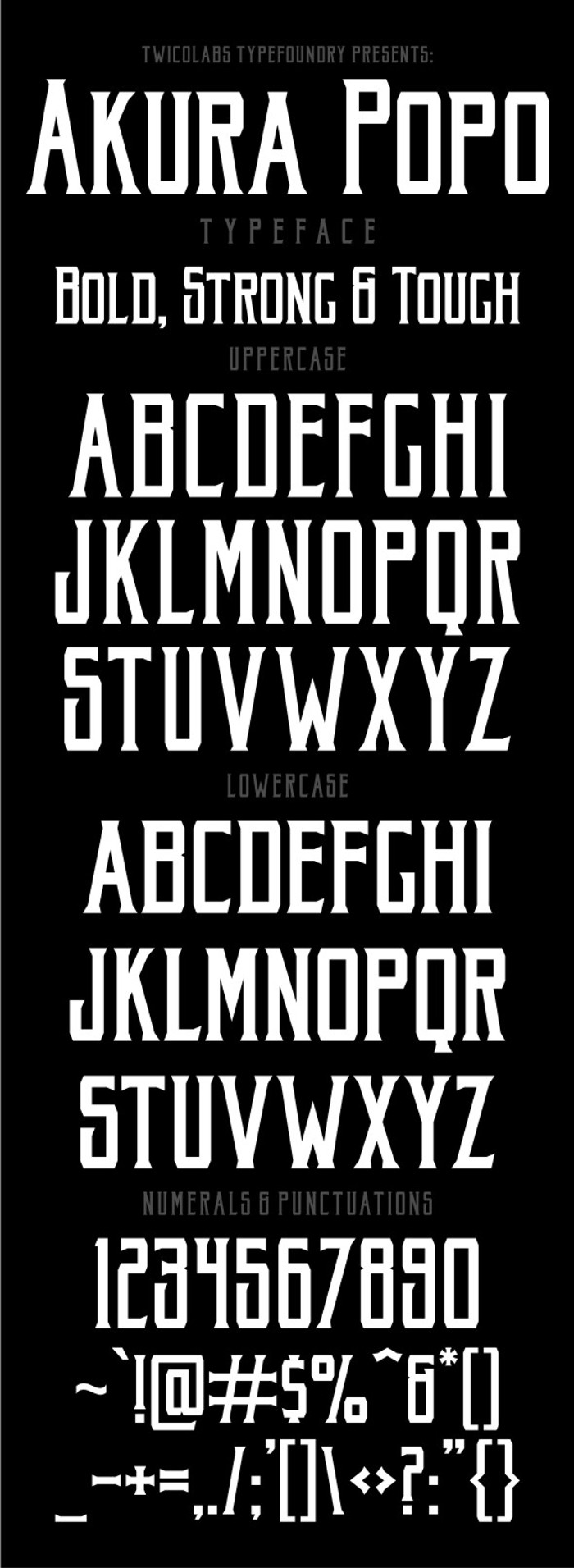
Akura Popo Font
Akura Popo is a vintage and classic condensed serif font / typeface with bold, strong and tough looking style. Suits best for logo, headline, letterhead, etc.
Very nice font. A real Arts & Crafts feel with an early 20th century advertisement look.